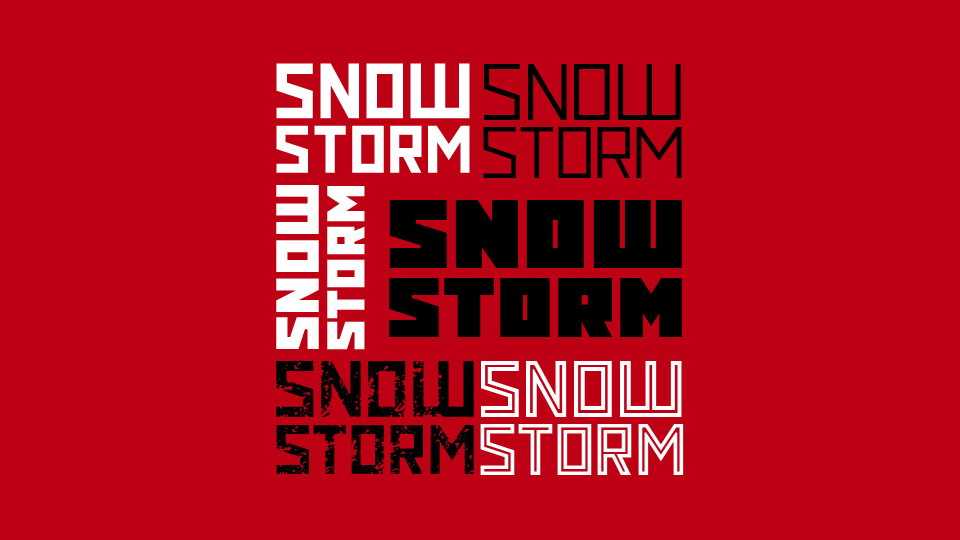
Download Snowstorm typeface, a strong industrial display font family in 4 weights and also Craft and Inline styles. Snowstorm fits for headlines, posters, eye-catching messages, print, branding and more.
Designer: Denis Sherbak